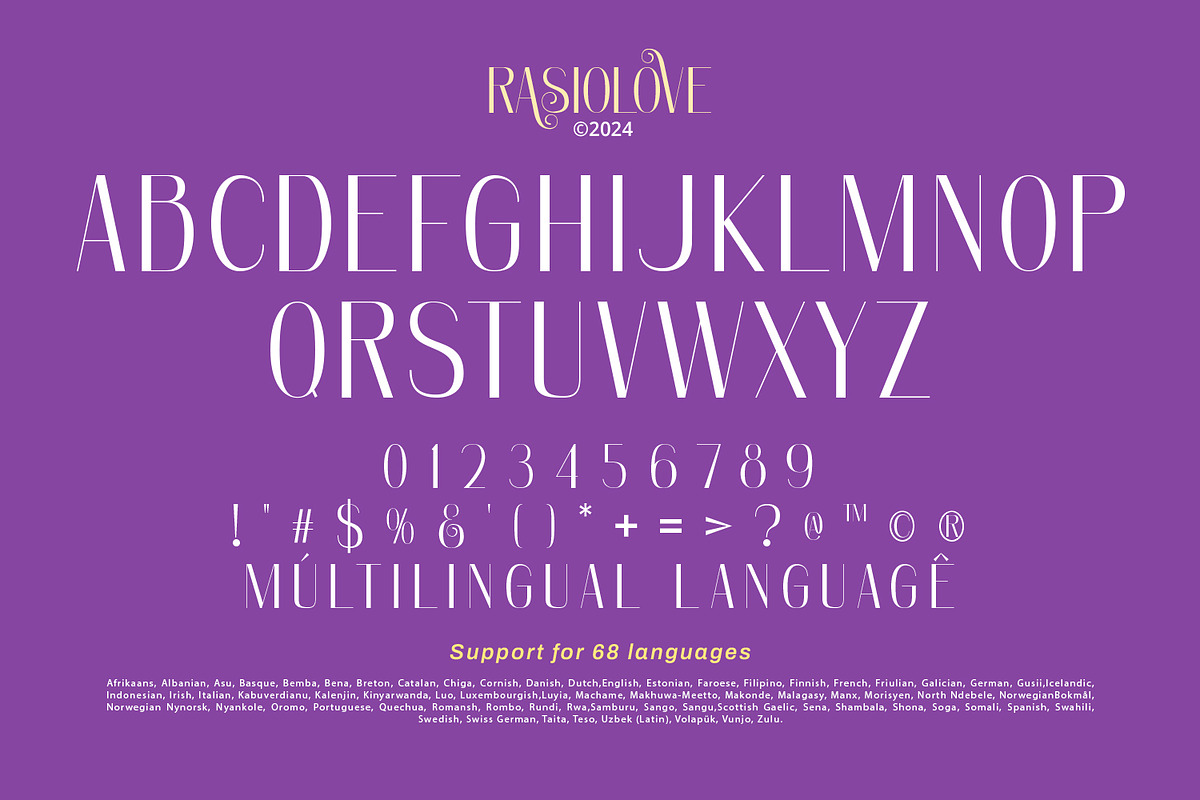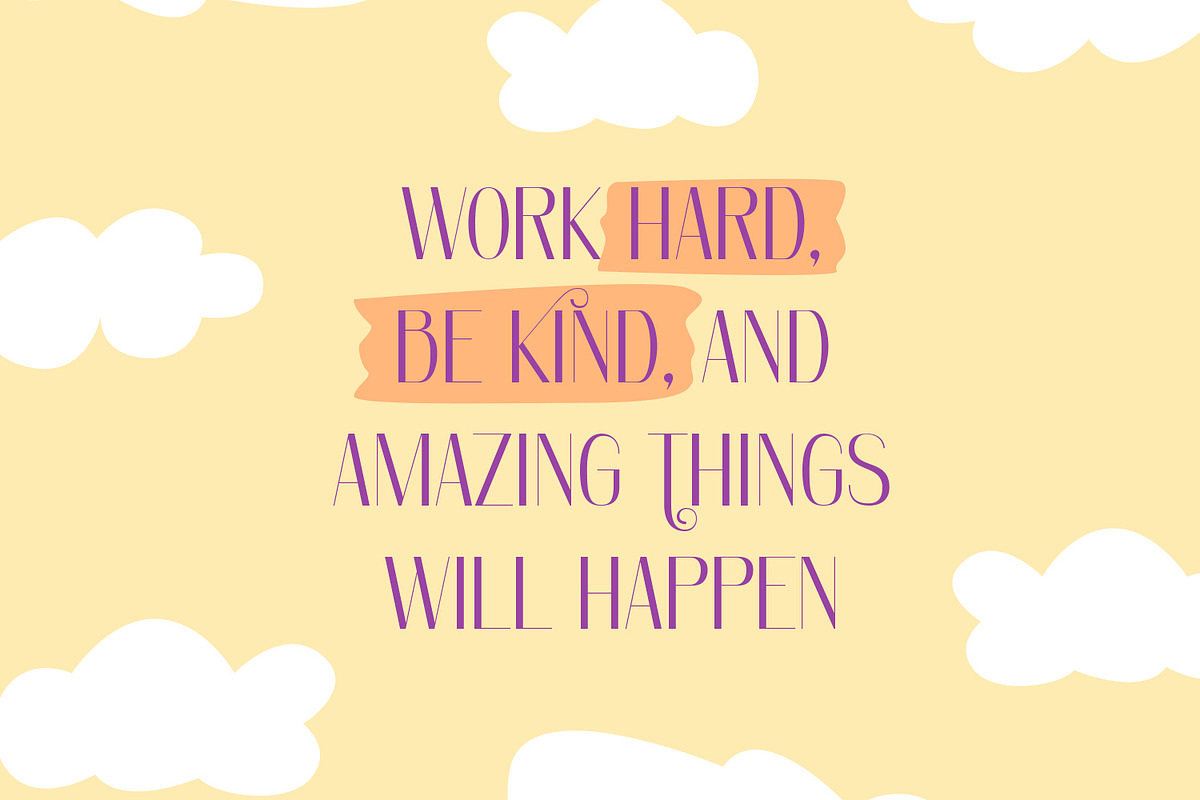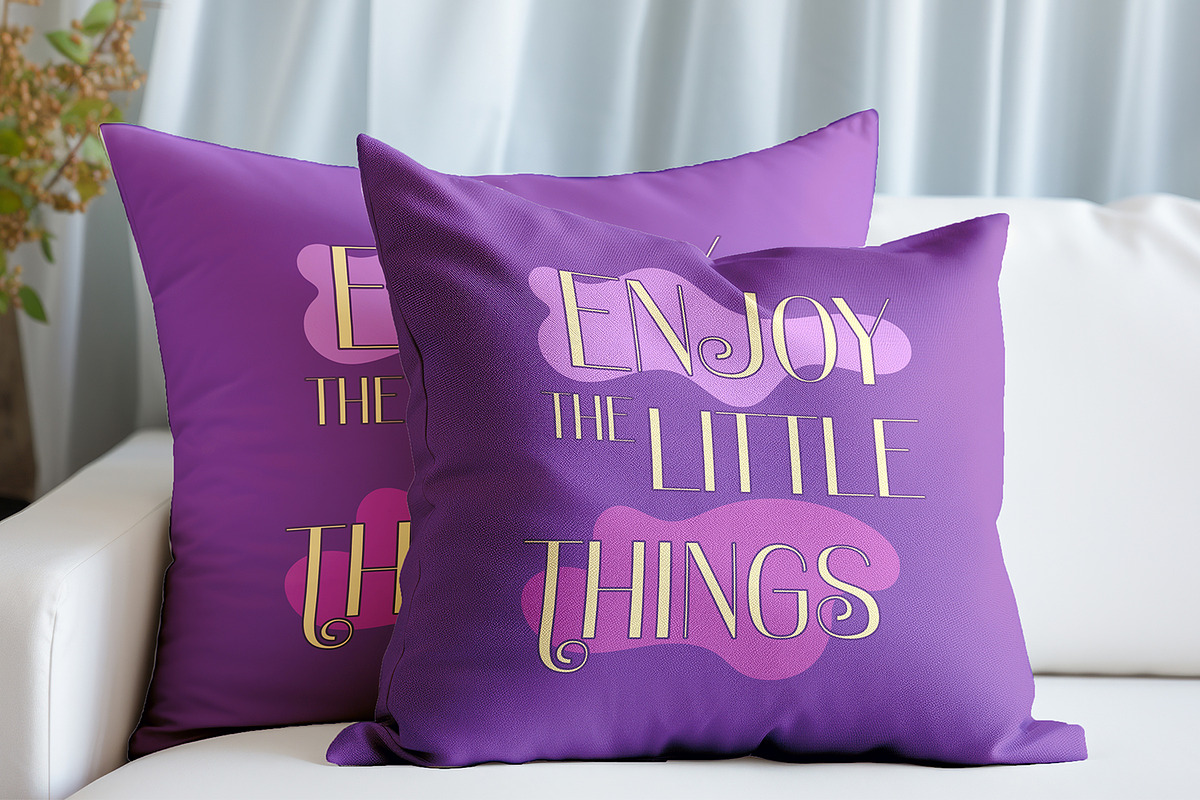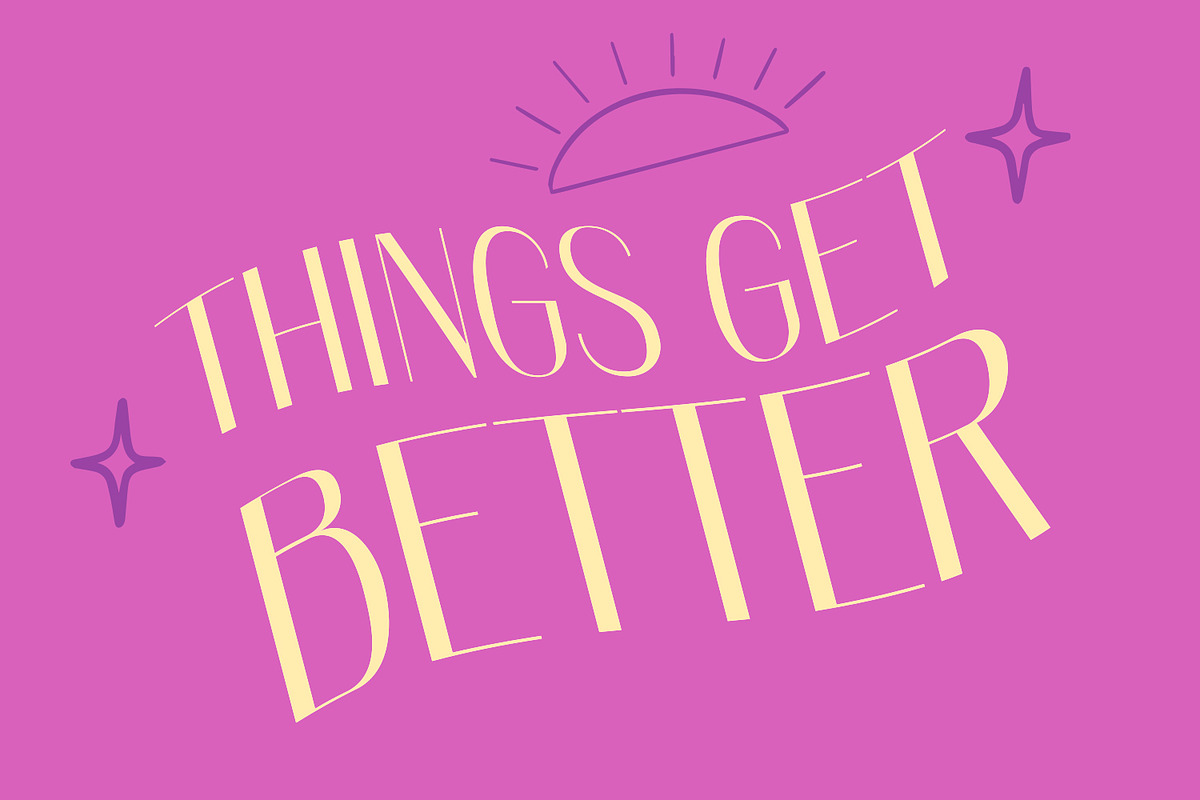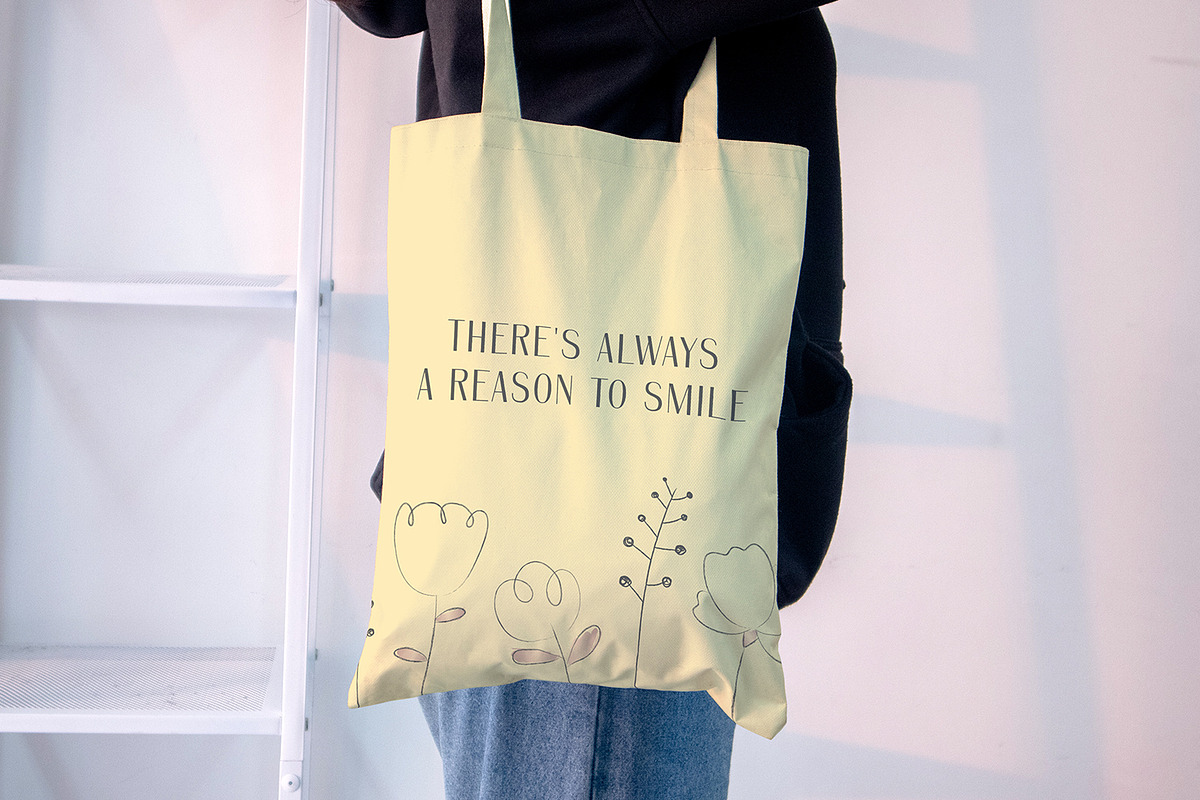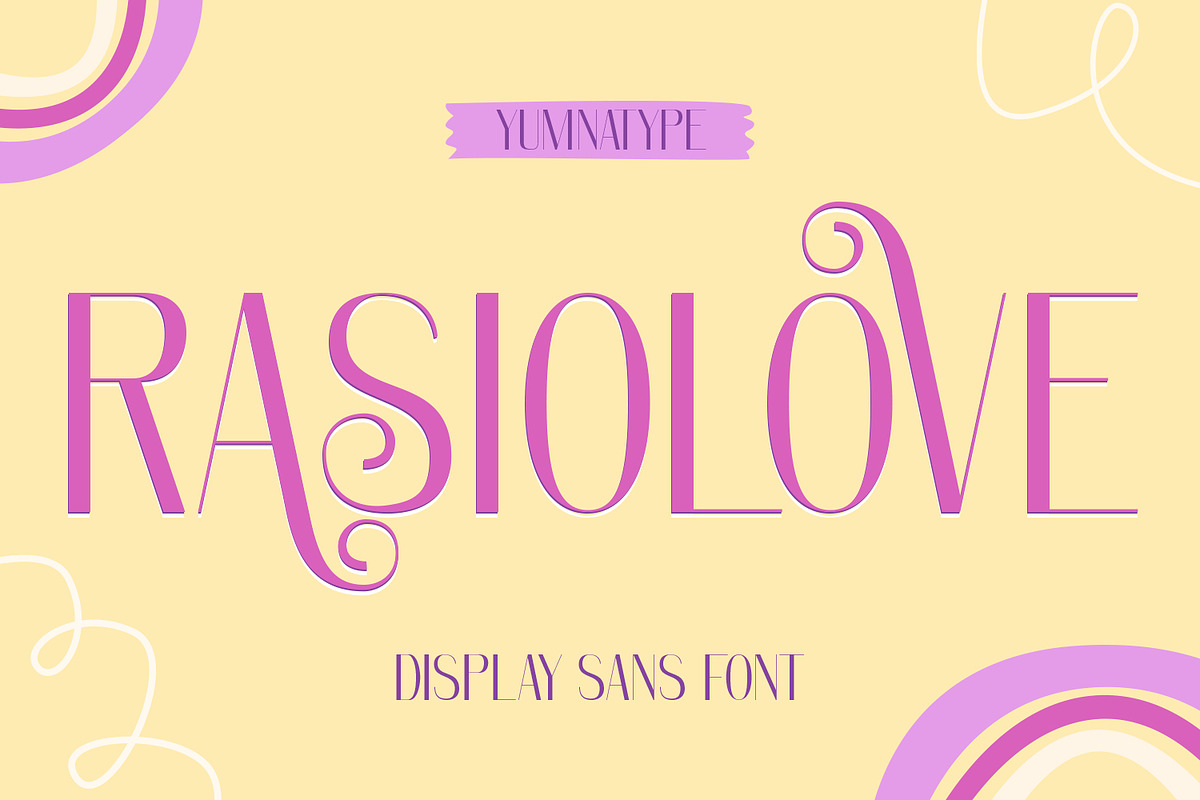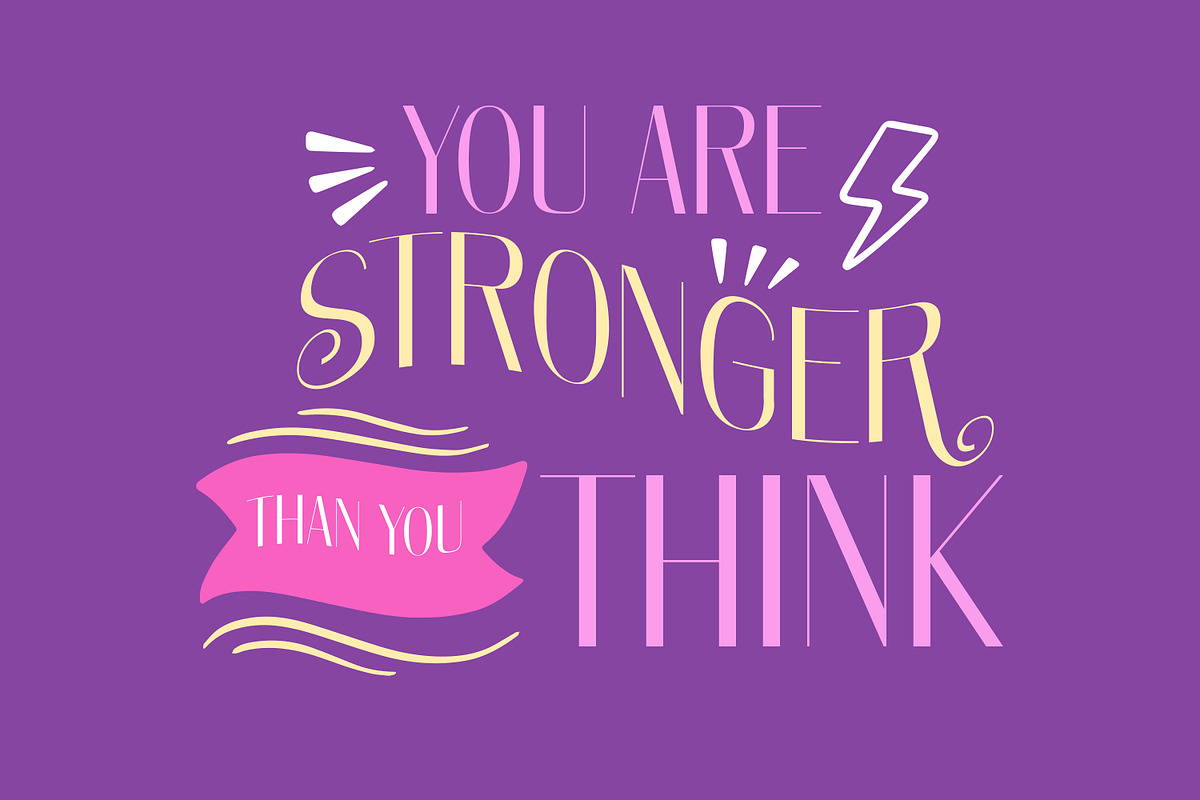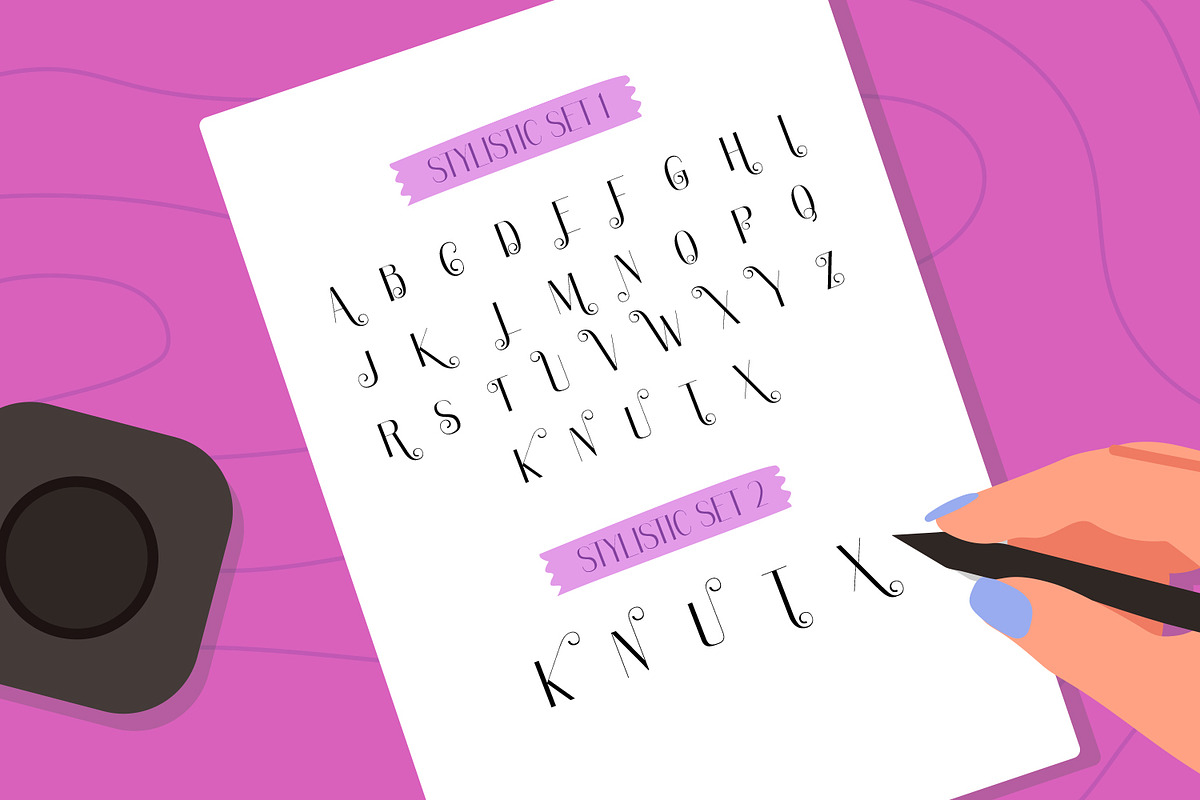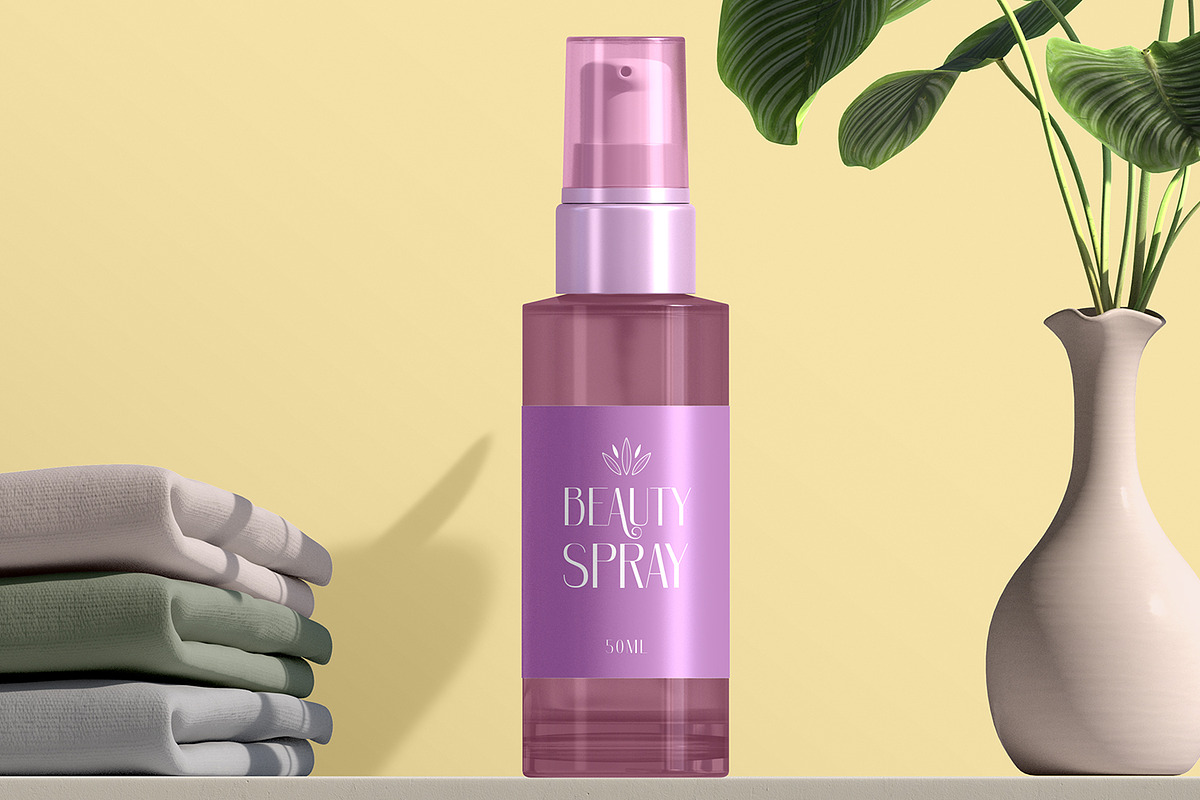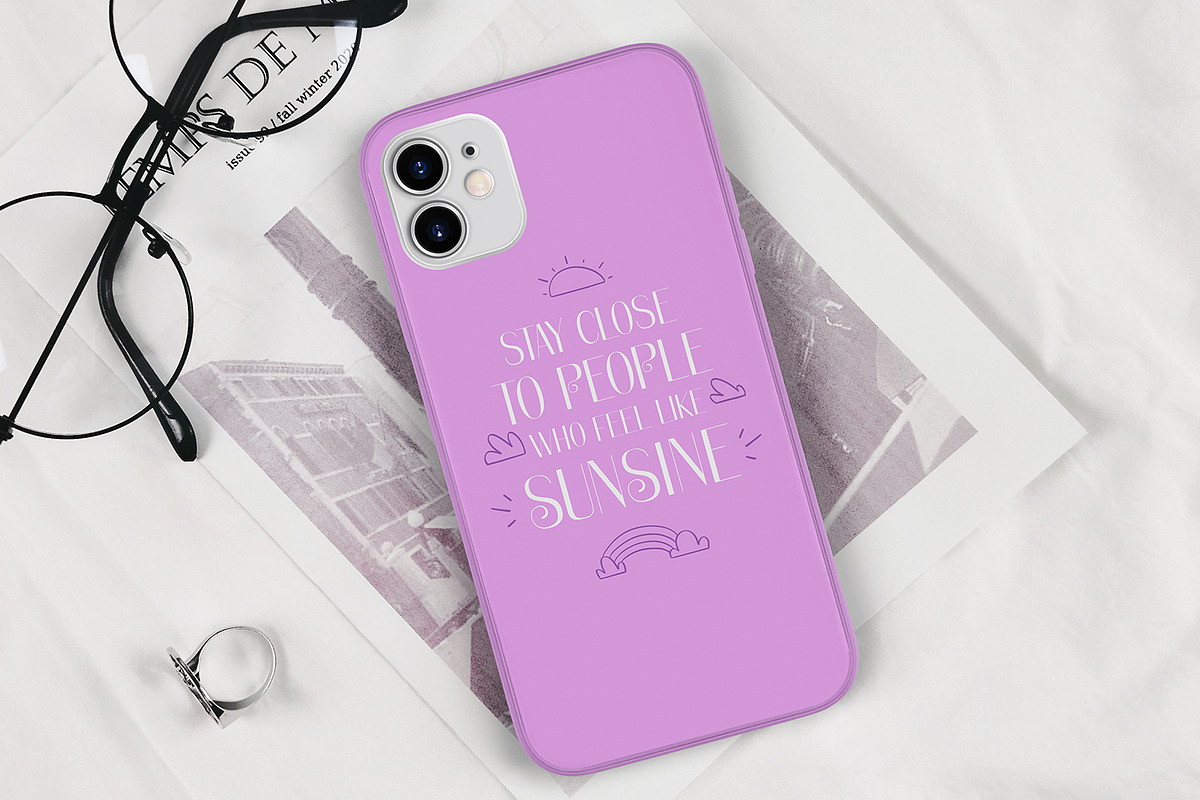
Rasio Love
Rasiolove is a sophisticated sans serif display font designed to make a striking impression with its refined elegance and modern appeal. Crafted in all caps, Ratiolove exudes a sense of authority and clarity.
With a fairly thin font weight, Ratiolove maintains a delicate appearance. One of the standout characteristics of Rasiolove is its visible contrast, which enhances the readability. The contrast between the thick and thin strokes adds a dynamic quality to the characters, making them pop and catch the viewer's eye. In addition, enjoy the features here.
- Stylistic Sets
Rasiolove fits in headlines, logos, posters, flyers, branding materials, print media, editorial layouts, and many more designs. Find out more ways to use this font by taking a look at the font preview.